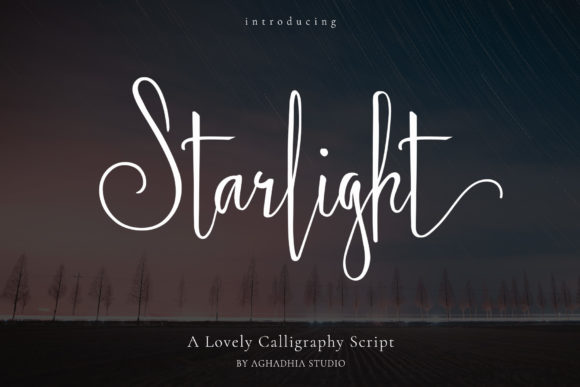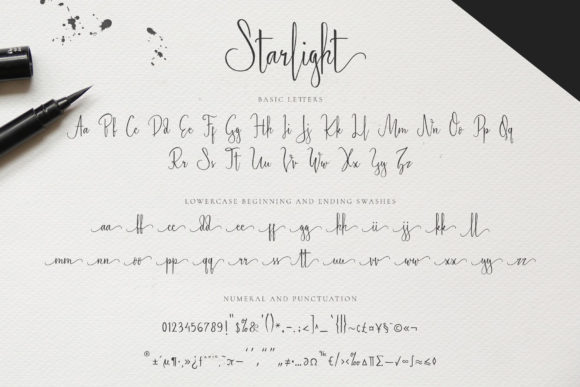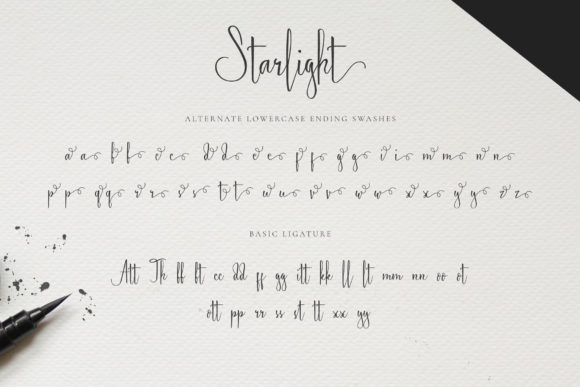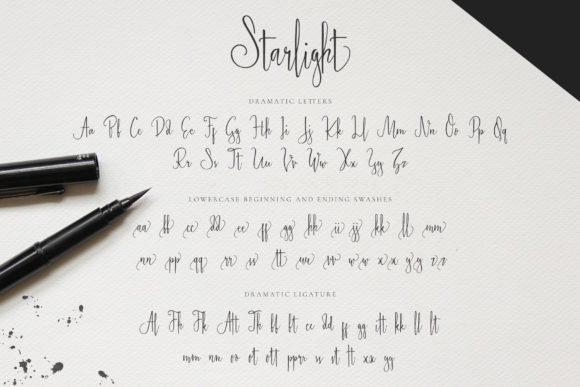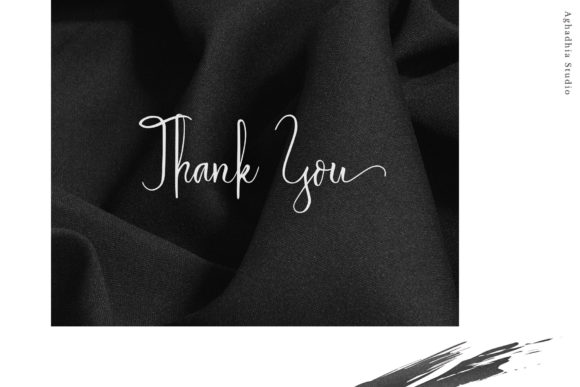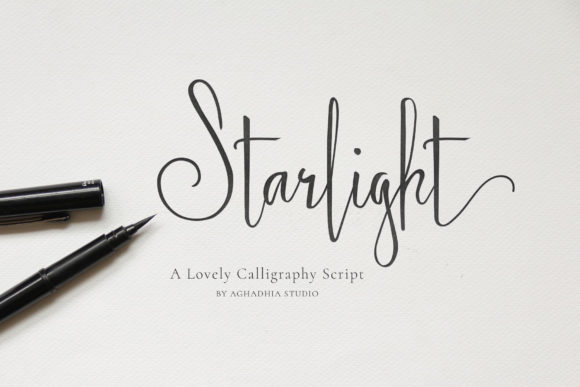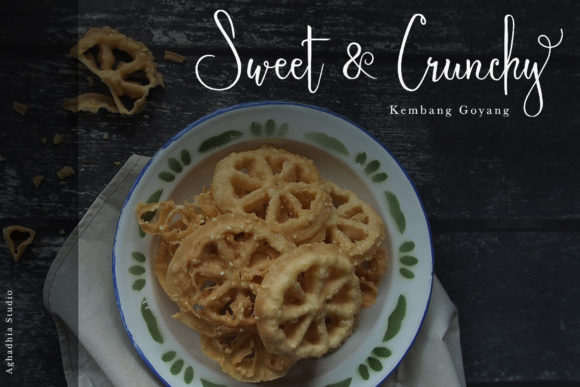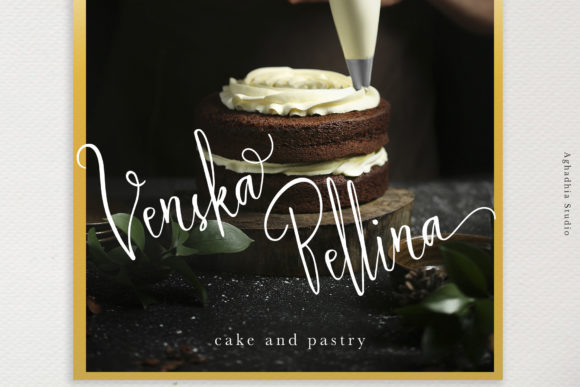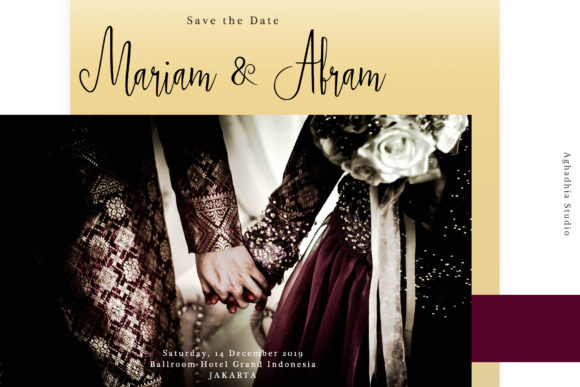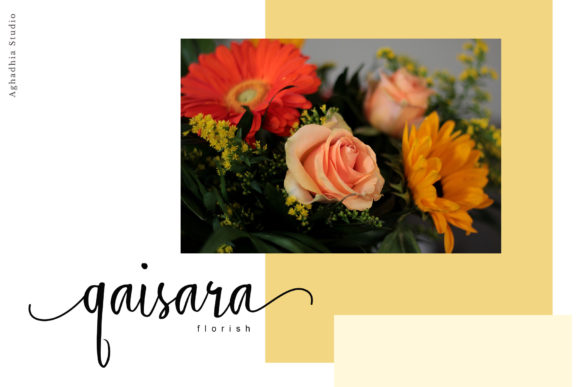
Starlight Font
About Starlight Font
Starlight is an incredibly lovely script font that smoothly bridges the gap between signature font style and a more quirky crafting font.